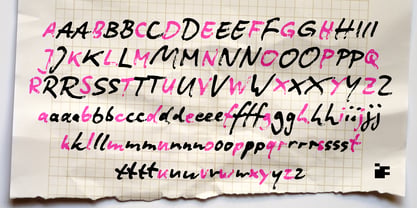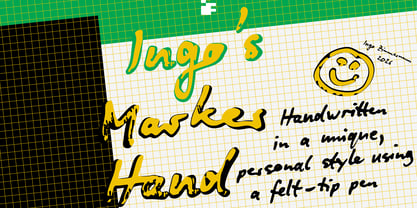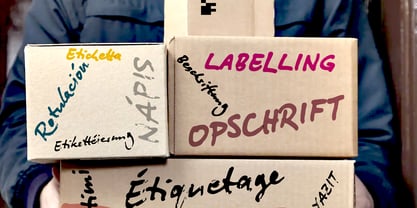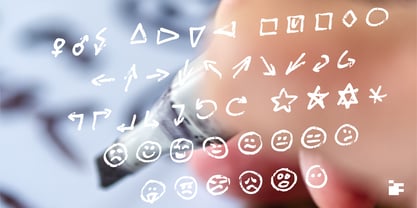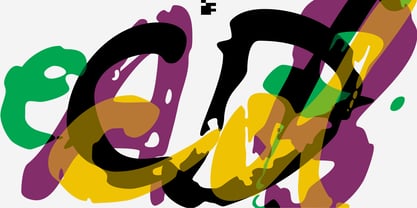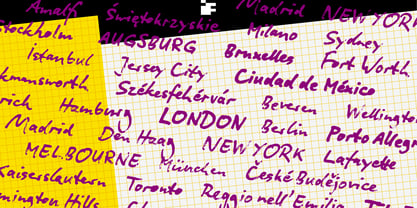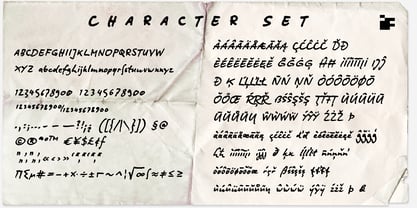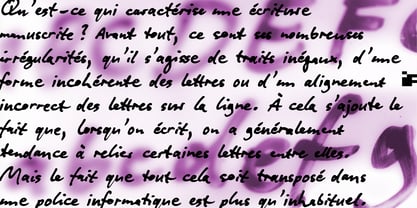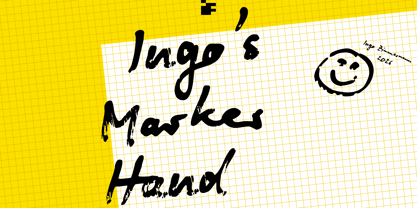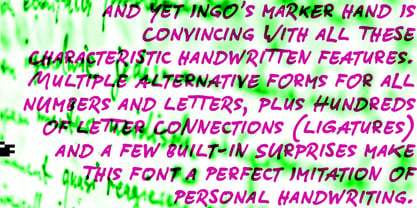
Ingos Marker Hand
Die Schriftfamilie Ingos Marker Hand wurde von Ingo Zimmermann entworfen und von Ingo veröffentlicht. Ingos Marker Hand enthält 4 Stile und Familienpaketoptionen. Mehr über diese Familie
What defines handwriting? First and foremost, it’s the many irregularities—whether in the uneven strokes, the inconsistency in the shape of the letters, or the fact that the letters aren’t perfectly aligned on the line. On top of that, when writing, people generally tend to connect certain letters. But for all of this to be im­ple­mented in a computer font is more than unusual. And yet Ingo’s Marker Hand is convincing with all these characteristic handwritten features. Multiple alternative forms for all numbers and letters, plus hundreds of letter connections (ligatures) and a few built-in surprises make this font a perfect imitation of personal handwriting. Like its counterpart, the “Biró Script” written with a ballpoint pen, “Ingo’s Marker Hand” is written freely. However, the writing instrument used was a so-called ‘marker’, a thick felt-tip pen with a rectangular tip, and the writing surface was a smooth whiteboard. Naturally, under such conditions one writes much larger than with a ballpoint pen on paper, which has significantly influenced the expression of the script. Also, the pen I used was no longer brand new, and so some details became more or less blurry or unclear. The thick tool also meant that more delicate shapes, such as a small ‘e’ or ‘o’, often melted together into a smudge. However, both these ‘errors’ only serve to further enhance the hand-drawn feel. All of this is made technically possible by several OpenType features integrated into the font, which can be enabled or disabled in the respective application.
Ingos Marker Hand
Founded in 1994, ingoFonts provides the fonts designed and crafted by me, Ingo Zimmermann. I am a type design professional located in Augsburg, Germany, and working in corporate and editorial design. My very first fonts were stencils which I cut out of paperboard and used in graffiti. During my studies I began to publish my fonts under the label ingoFonts, and of all it started with a blackletter: ”Faber Fraktur.“ By now my designs include fonts of all styles, from classical to modern, script fonts, revivals of historic typefaces, Romans, sans serifs, decorative fonts, including fonts like ”Biró Script“, ”Absolut“ or ”Maier's Nr.8“, which seem to be growing quite popular since they've been published.